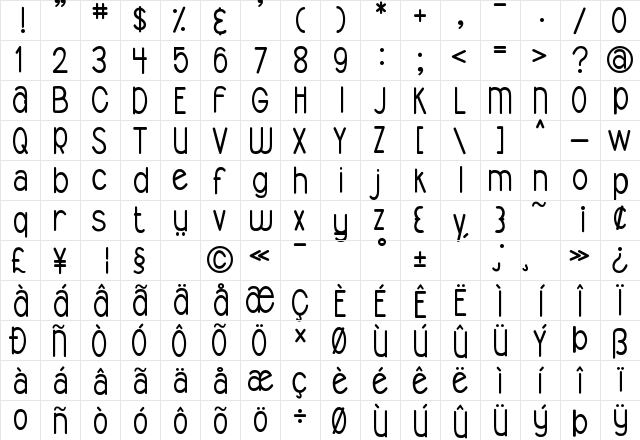
DJB Sunflowers for Vincent Regular
| Designer | Darcy Baldwin (djbfontography) |
Design Context for DJB Sunflowers for Vincent Typeface
DJB Sunflowers for Vincent is a composed and adaptable typeface that performs quietly and consistently across a wide range of design contexts.